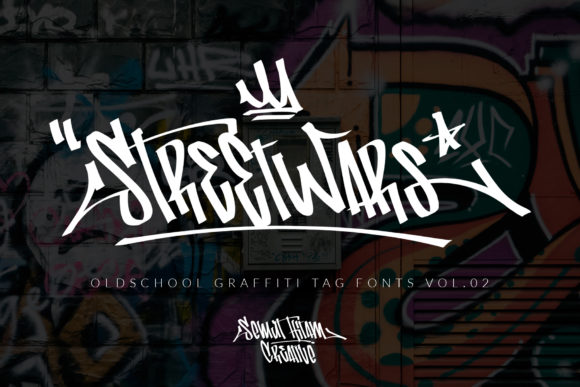
Dive into the enigmatic world of Street Wars Font, a graffiti-inspired masterpiece crafted by semuthitam, a visionary font artist. Prepare to be enthralled by a font family that exudes raw energy and urban charm, perfect for igniting your creativity and making a statement.
With its bold and captivating characters, Street Wars Font transcends the boundaries of ordinary typography, transporting you to the vibrant streets where graffiti art thrives. Each letter is a testament to the artistry and passion that goes into creating something truly unique.
Unleash your inner rebel and let your designs speak volumes with this decorative font. Perfect for quote art, Street Wars Font will add a touch of edginess and personality to your projects. Imagine your words jumping off the page, demanding attention and leaving an unforgettable impression on your audience.
Whether you're a seasoned designer seeking a fresh perspective or a creative enthusiast looking to make a mark, Street Wars Font is your weapon of choice. Its versatility knows no bounds, from captivating logos and eye-catching posters to stunning social media graphics and unforgettable branding materials.
With Street Wars Font, you'll discover a world of possibilities, where your imagination runs wild and your designs reach new heights. Its unique charm will transform your projects into captivating works of art, leaving a lasting impact on all who encounter them.
Don't settle for ordinary fonts that blend into the background. Embrace the power of Street Wars Font and watch your creations come alive with an energy that's impossible to ignore. Join the ranks of creative rebels and let your designs speak louder than words.